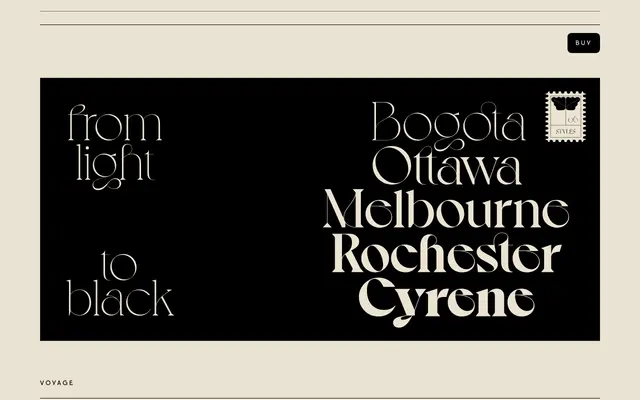
Voyage
VJ Type · Jérémy Schneider assisted by Liana Korios · 2020
Voyage specimen from VJ Type
A high-contrast display serif from VJ Type with pronounced curves, delicate hairlines and an extensive set of 55 stylistic ligatures and 26 alternates.
Designed by Jérémy Schneider and expanded from two weights to five in 2024, it pairs dramatic thick-thin contrast with distinctive curvilinear details, including an adventurous lowercase 'e' and a curly 'h'. The OpenType feature set is unusually generous for a display face, with multiple alternate ampersands, old-style figures and programmed ligature variants the user can toggle individually. Best suited to headlines, short editorial runs and branding where a romantic, slightly adventurous tone is wanted.
Voyage is classified as a display typeface with strong contrast between thick and thin strokes, featuring delicate hairlines and curvilinear letterforms that place it firmly in the high-contrast display serif category.